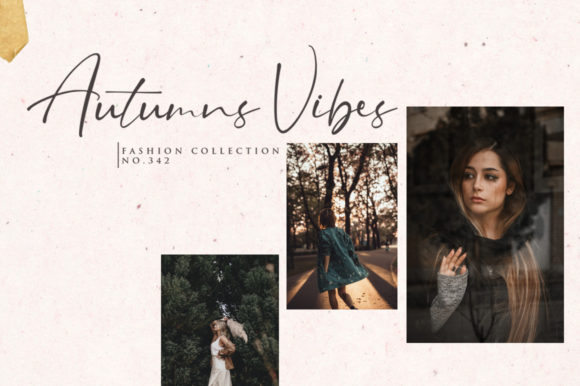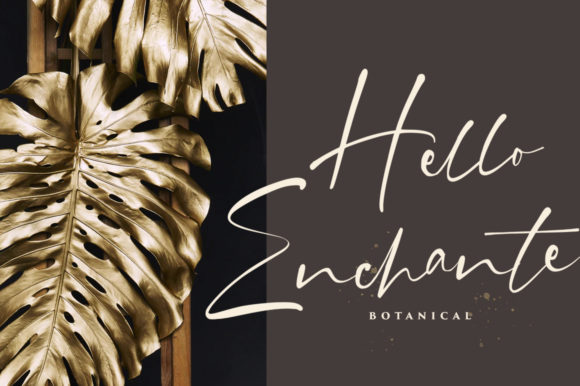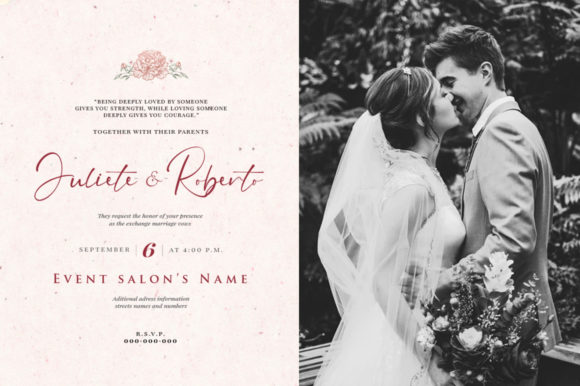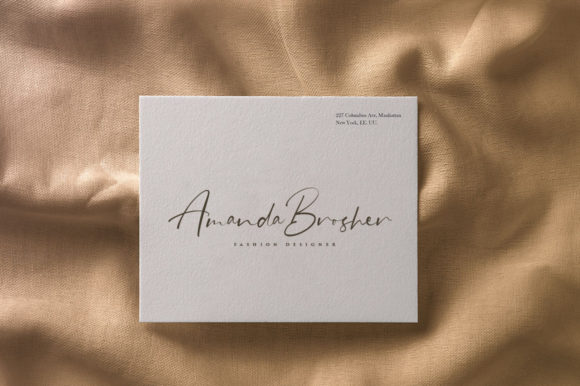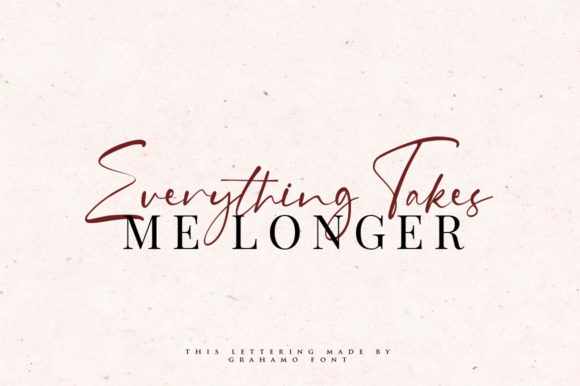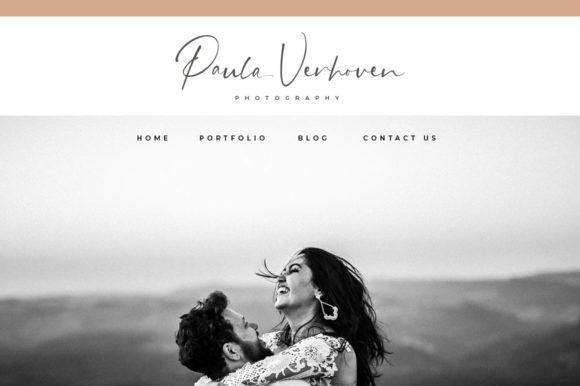
Discover the Charm of Grahamo Font: A Sweet and Bold Script
Are you a designer or crafter looking for a unique and eye-catching font to elevate your creative projects? Look no further than Grahamo Font, a sweet and charming script with a bold vibe that’s sure to inspire. In this article, we’ll dive into the world of Grahamo Font, exploring its features, benefits, and uses, as well as provide tips and tricks for incorporating it into your designs.
What is Grahamo Font?
Grahamo Font is a beautiful script font that exudes a sense of charm and sophistication. Its unique style is characterized by bold, flowing lines and a sweet, whimsical feel that’s perfect for a wide range of creative projects. Whether you’re designing a logo, crafting a handmade card, or creating a stunning visual display, Grahamo Font is sure to make a lasting impression.
Key Features of Grahamo Font
So, what sets Grahamo Font apart from other fonts? Here are some of its key features:
- Unique and eye-catching design: Grahamo Font boasts a one-of-a-kind design that’s sure to turn heads.
- Sweet and charming vibe: This font has a warm, friendly feel that’s perfect for creating a sense of connection with your audience.
- Bold and confident: Grahamo Font is not afraid to make a statement, making it perfect for headlines, titles, and other prominent text elements.
- Versatile: This font can be used in a wide range of creative projects, from digital designs to handmade crafts.
Benefits of Using Grahamo Font
So, why should you choose Grahamo Font for your next project? Here are just a few benefits:
- Adds a personal touch: Grahamo Font’s unique style and charm can help you add a personal touch to your designs.
- Creates a lasting impression: This font’s bold, eye-catching design is sure to make a lasting impression on your audience.
- Perfect for creative projects: Grahamo Font is ideal for a wide range of creative projects, from graphic design to crafting and DIY.
Using Grahamo Font in Your Designs
So, how can you incorporate Grahamo Font into your designs? Here are a few tips and tricks:
- Pair with complementary fonts: Grahamo Font pairs well with a range of fonts, so don’t be afraid to experiment and find the perfect combination.
- Use in headlines and titles: This font’s bold, confident vibe makes it perfect for headlines and titles.
- Add a personal touch: Use Grahamo Font to add a personal touch to your designs, whether you’re creating a handmade card or a digital graphic.
- Experiment with colors and textures: Grahamo Font looks great in a range of colors and textures, so don’t be afraid to get creative and try new things.
In conclusion, Grahamo Font is a sweet and charming script with a bold vibe that’s sure to inspire designers and crafters alike. With its unique style, versatility, and ease of use, this font is perfect for a wide range of creative projects. Whether you’re looking to add a personal touch, create a lasting impression, or simply try something new, Grahamo Font is a great choice. So why not give it a try and see the difference it can make in your designs?
Get Inspired by Grahamo Font
Ready to get inspired by Grahamo Font? Here are a few ideas to get you started:
- Create a handmade card: Use Grahamo Font to add a personal touch to your handmade cards and gifts.
- Design a logo: This font’s bold, confident vibe makes it perfect for logos and branding.
- Craft a visual display: Use Grahamo Font to create a stunning visual display that showcases your creativity.
- Make a digital graphic: Grahamo Font is perfect for digital graphics, from social media posts to blog headers.
With Grahamo Font, the possibilities are endless. So why not give it a try and see what amazing creations you can come up with?